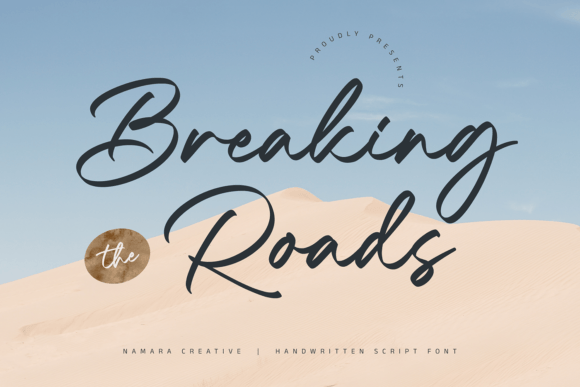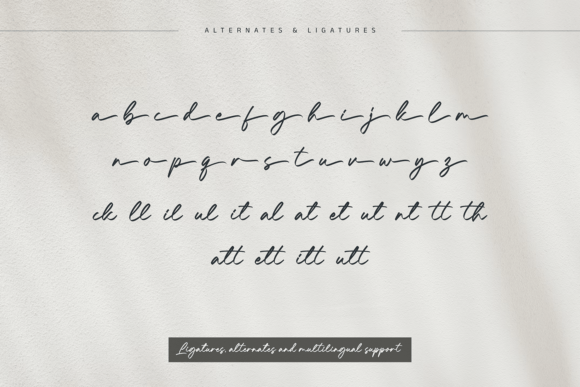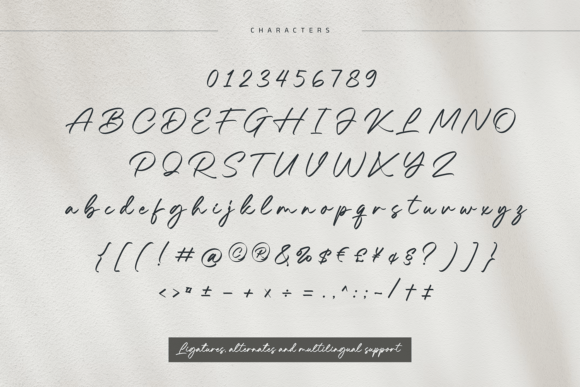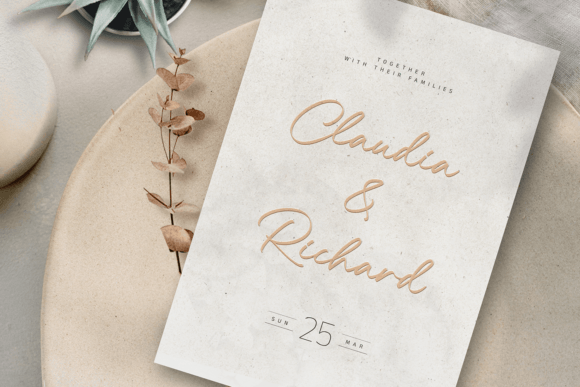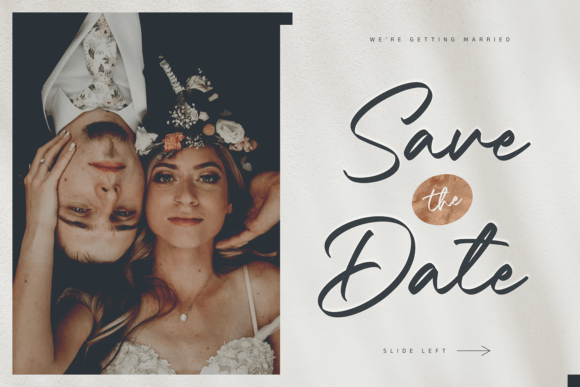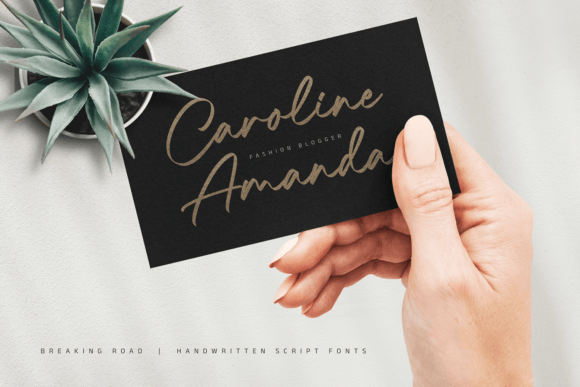
Introduction to Breaking Roads Font
Introducing “Breaking Road”, a contemporary hand-scripted font that exudes an organic, laid-back charm.
This typeface features robust, irregular strokes that subtly fluctuate in width, offering a balanced mix of sophistication and casualness It’s an ideal match for wedding invites, greeting cards, or posters, effortlessly infusing a touch of warm-hearted simplicity.
Key Features of Breaking Roads Font